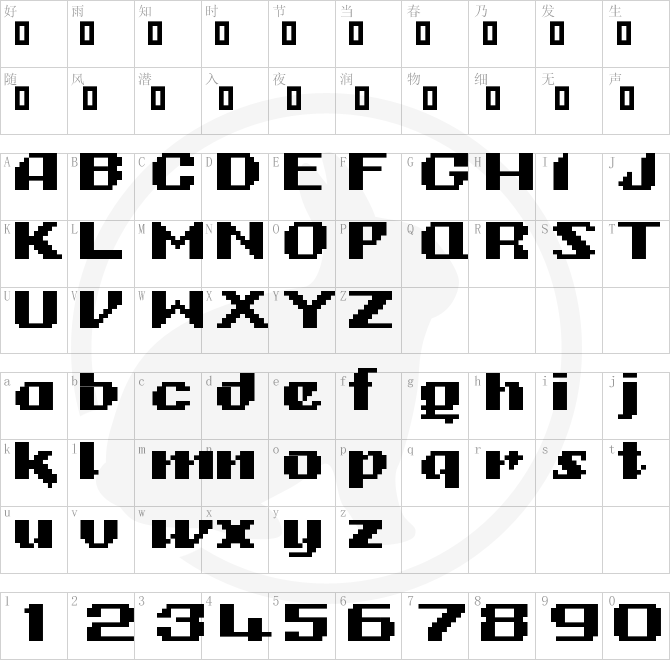
- Font Name:00FanatixMnemonix
00FanatixMnemonix.ttf is a very beautiful artistic font, 00FanatixMnemonix.ttf is widely used in the design and printing of various books and pictures,00FanatixMnemonix.ttf has a strong visual impact,00FanatixMnemonix.ttf is a commonly used font in newspapers, magazines and books, and is used in posters, e-commerce Poster design, store design, logo design, font design and other fields.00FanatixMnemonix.